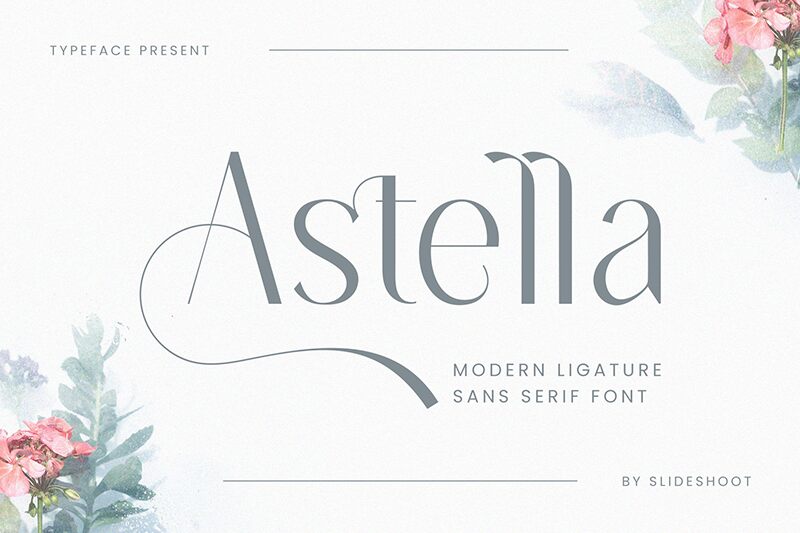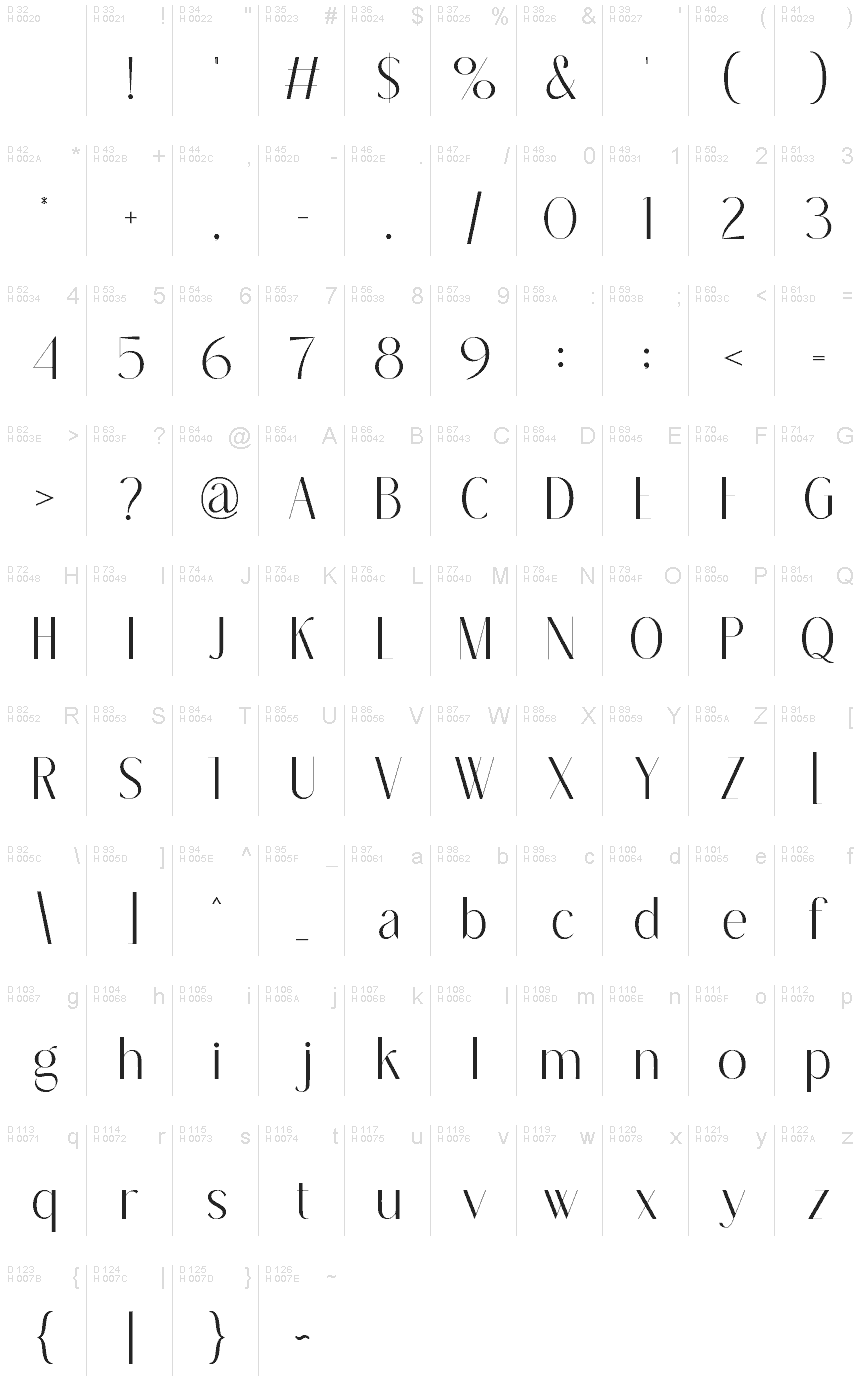
Astella
Astella font by Ahmad Riqi is a light sans serif that elegantly combines sophisticated details with a contemporary design approach. Described as refined and minimalistic, it introduces sleek characters with fashionable curvatures. The stylish appearance of Astella makes it charming and versatile when used in different branding or publishing projects.
Astella is ideal for weddings, logos, packaging designs, social media graphics, book covers, magazines, websites, digital content production, advertising banners and posters. additionally all professionals can benefit from this free font where its elegant touch is required!